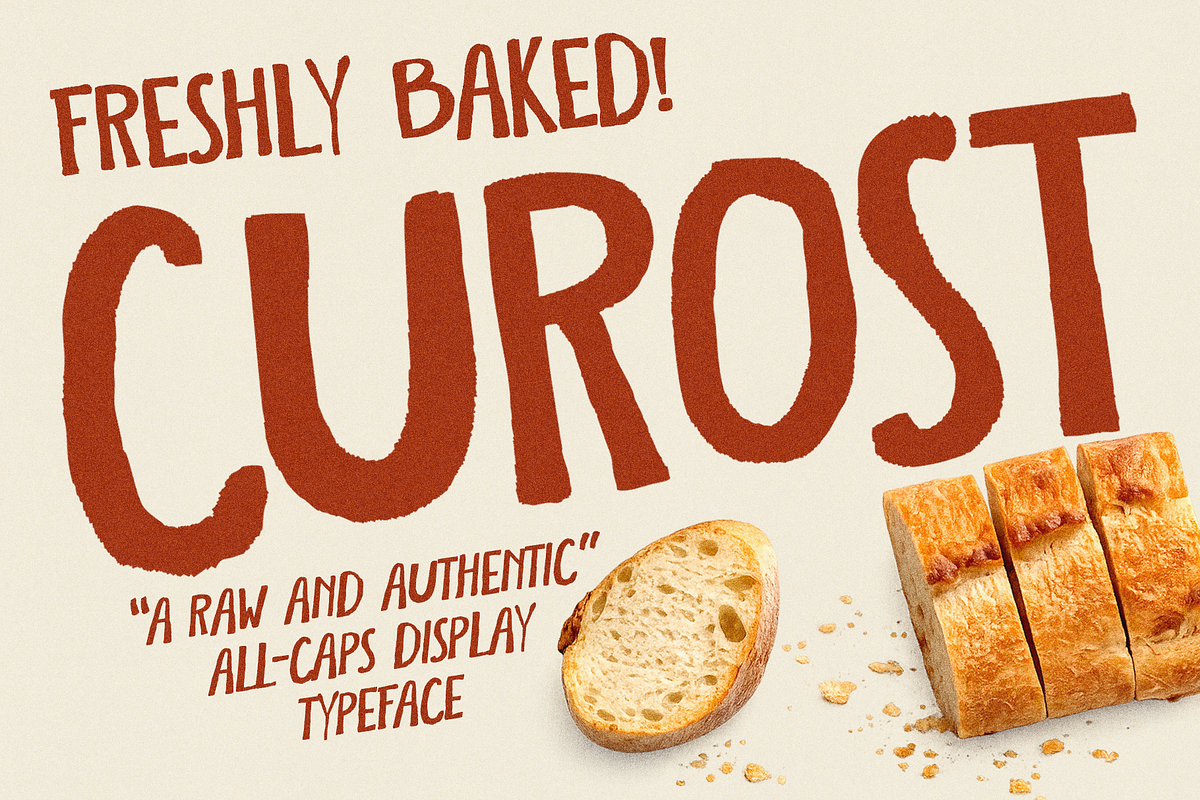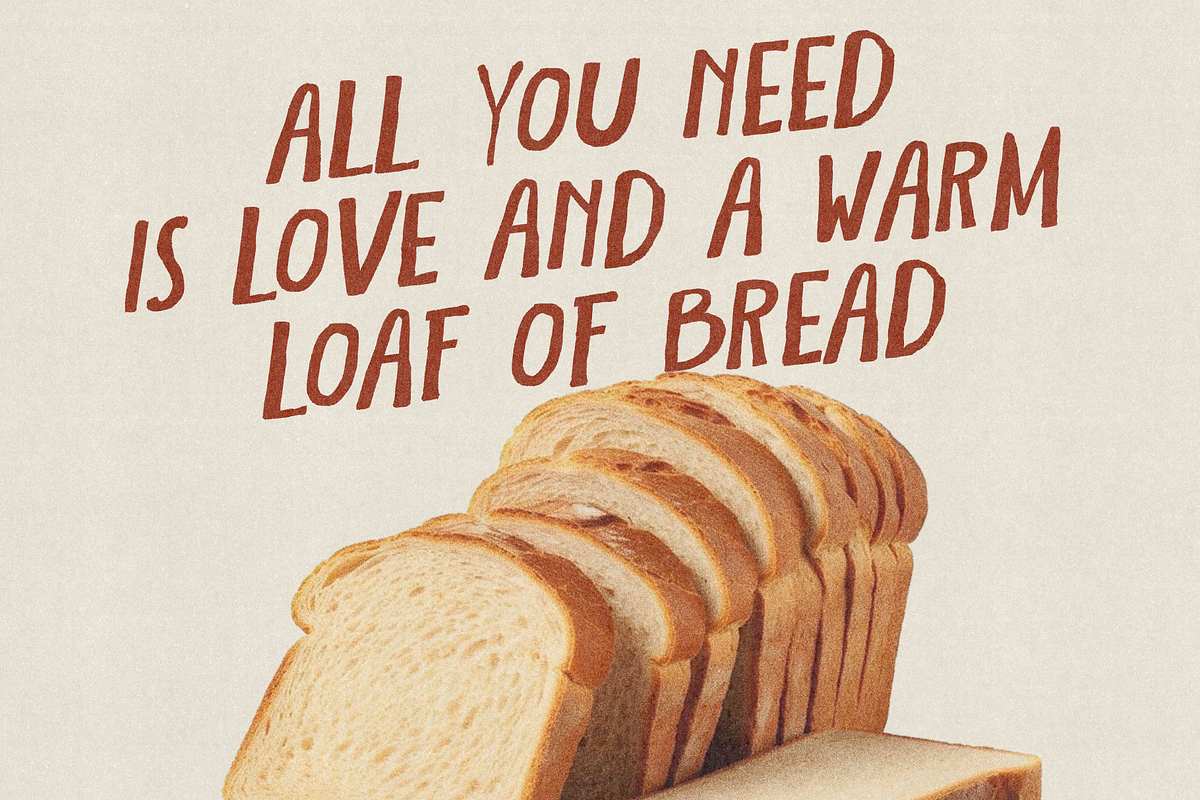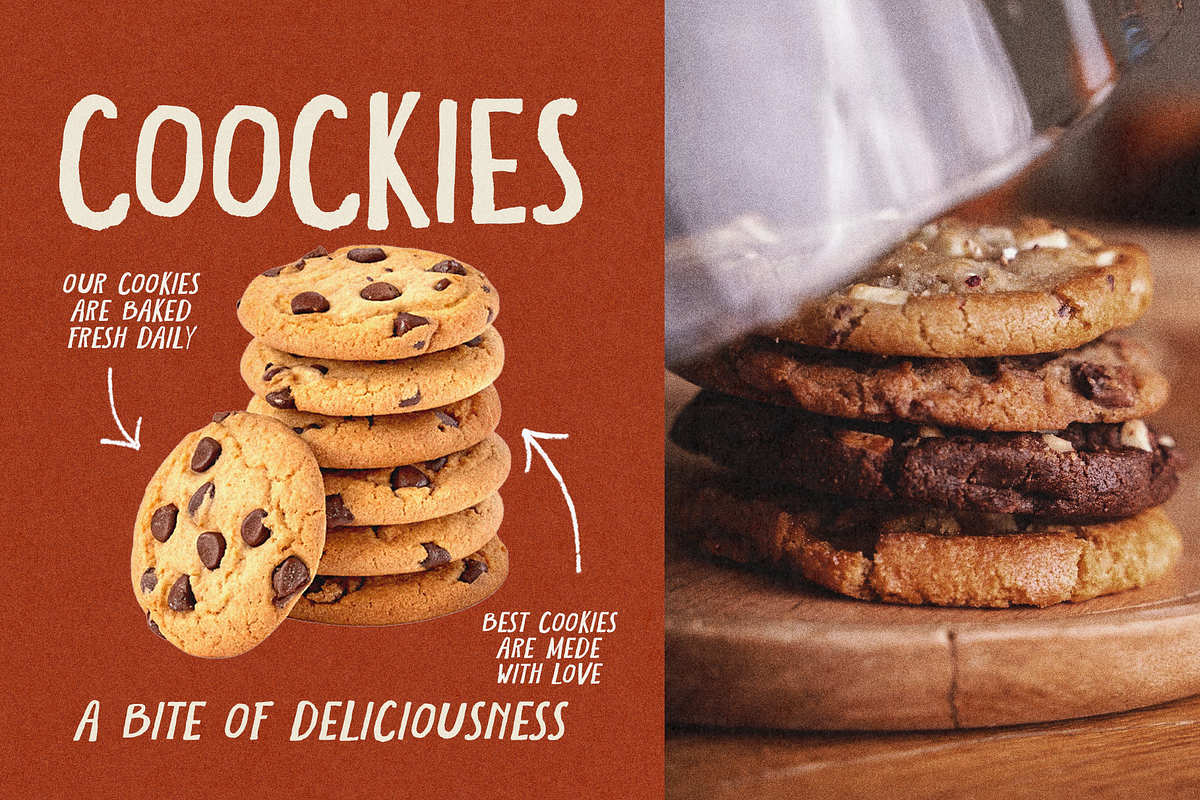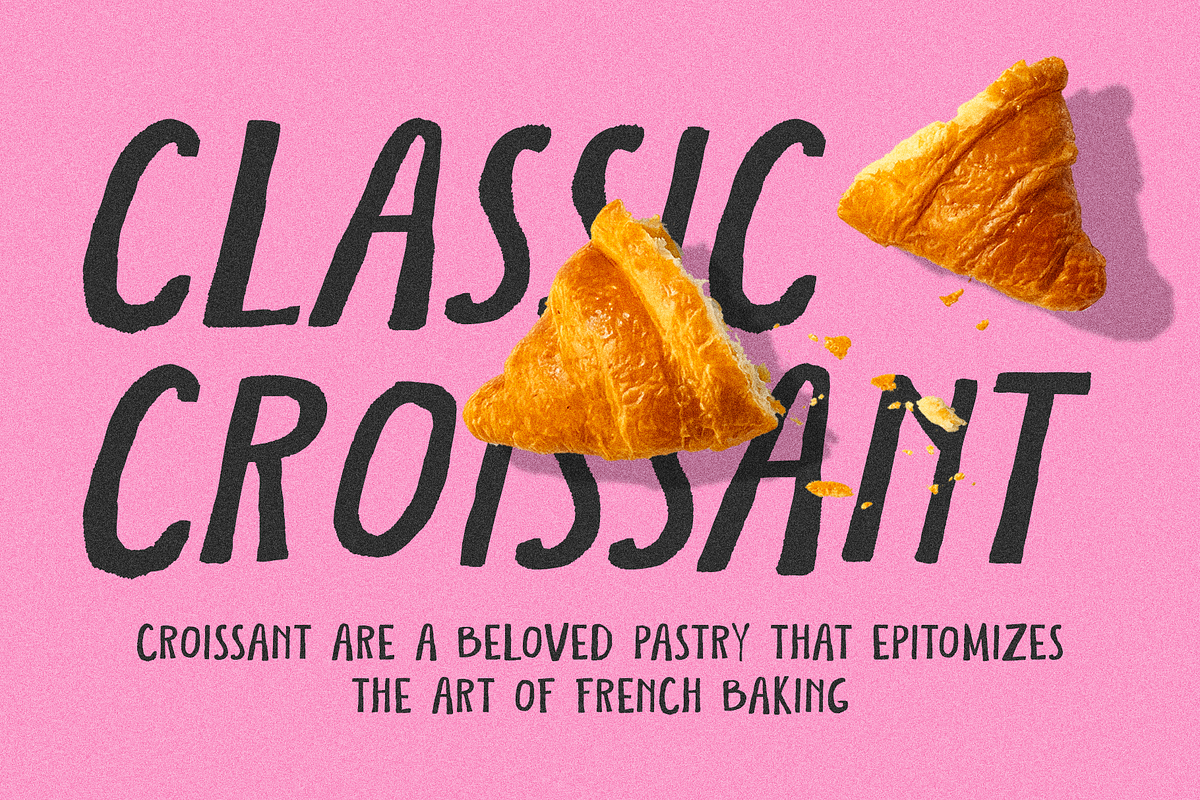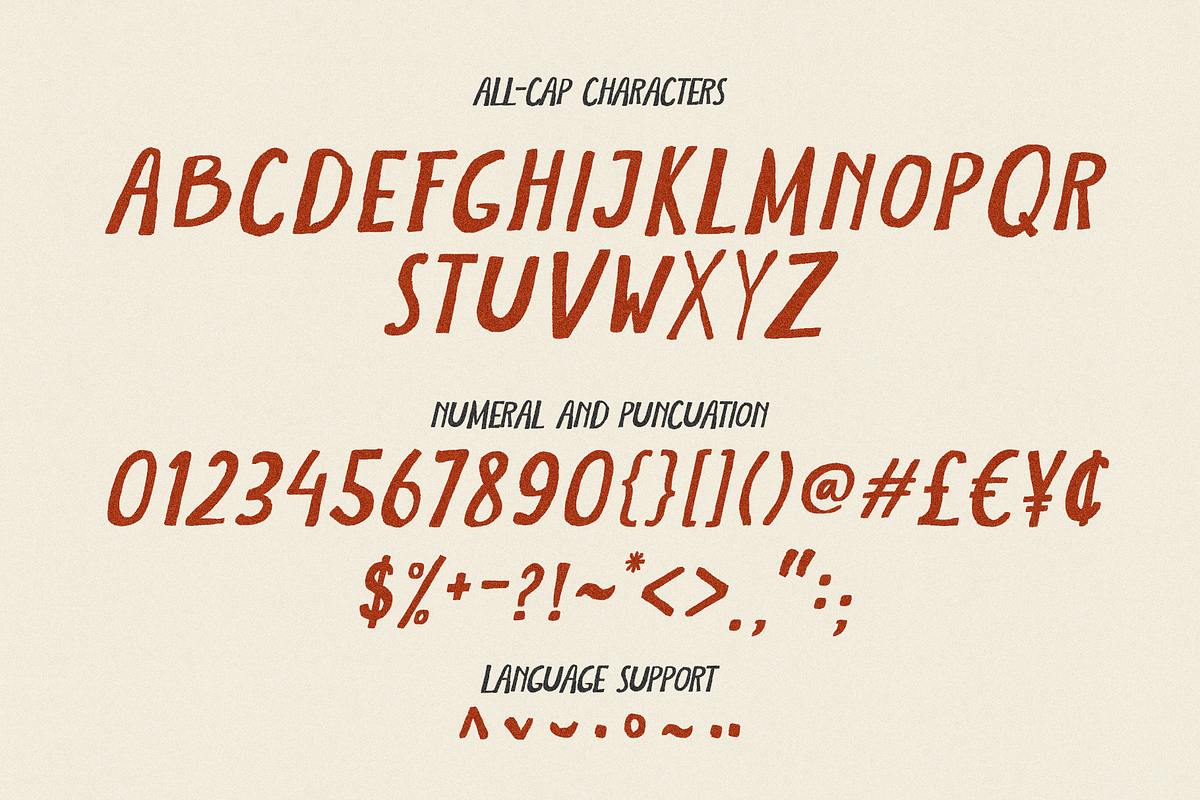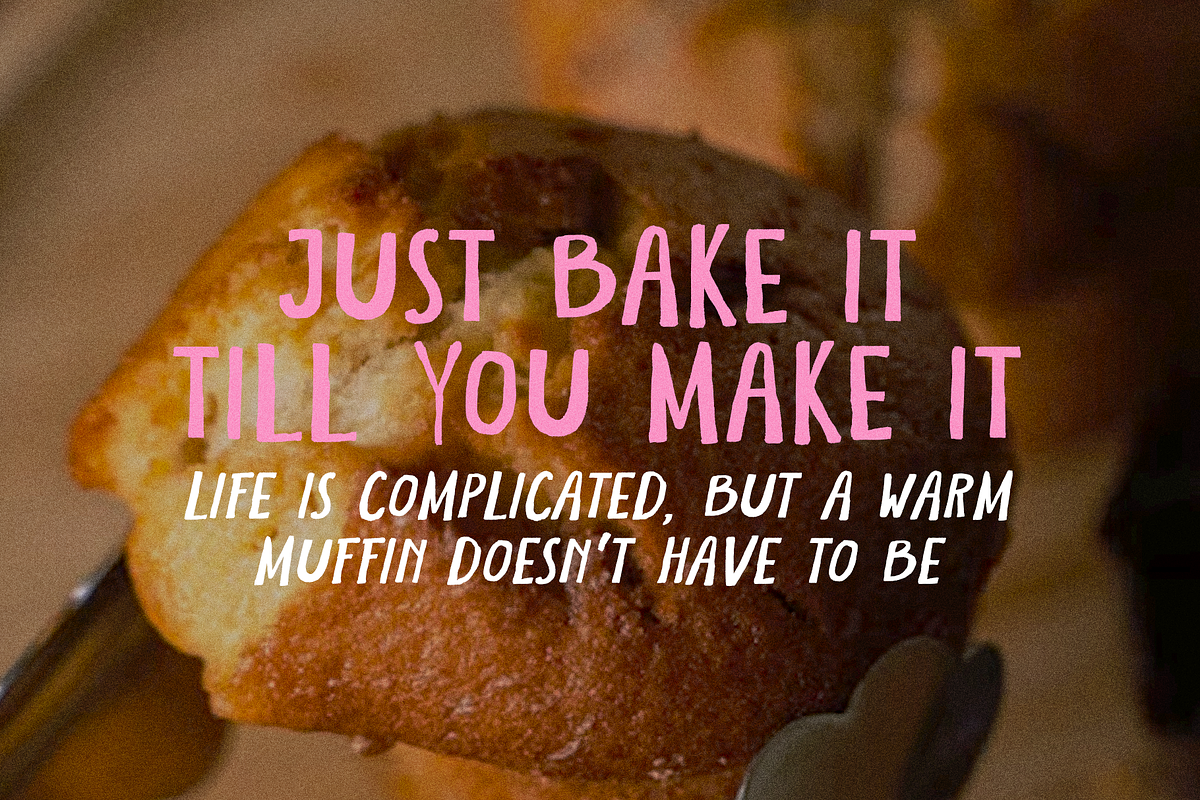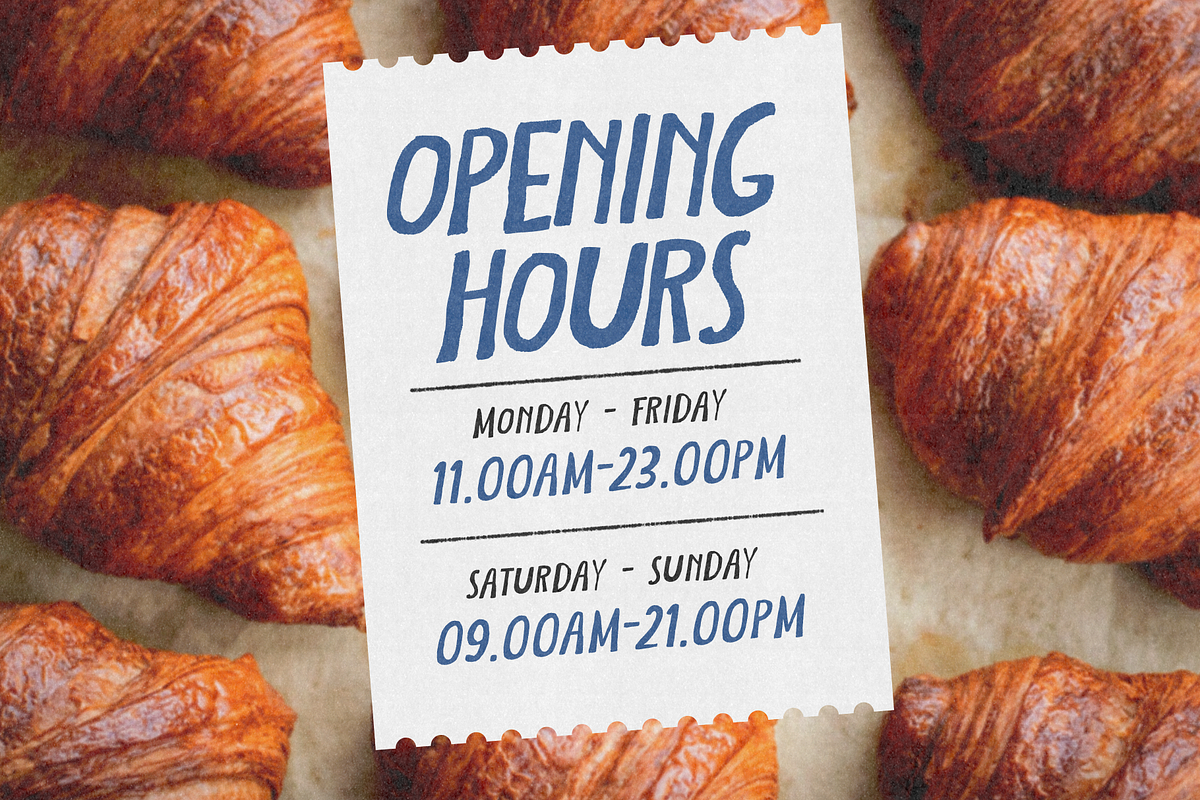
Curost
Inject a dose of authentic, human touch into your designs with CUROST. Crafted with a raw, hand-drawn aesthetic, this all-caps display font features irregular edges and a natural texture that evokes a sense of warmth and craftsmanship.
CUROST is designed for creators who want to break away from digital perfection and embrace the beauty of imperfection. Its bold, handmade strokes ensure your headlines stand out with a friendly, approachable vibe.
Branding & Logos: Ideal for coffee shops, bakeries, and artisan boutiques.
Packaging: Great for organic food labels, craft beer bottles, or skincare products.
Merchandise: Eye-catching on t-shirts, tote bags, and greeting cards.
Digital Content: Perfect for Pinterest graphics, Instagram stories, and YouTube thumbnails.
Standard Uppercase Alphabet
Numbers & Essential Punctuation